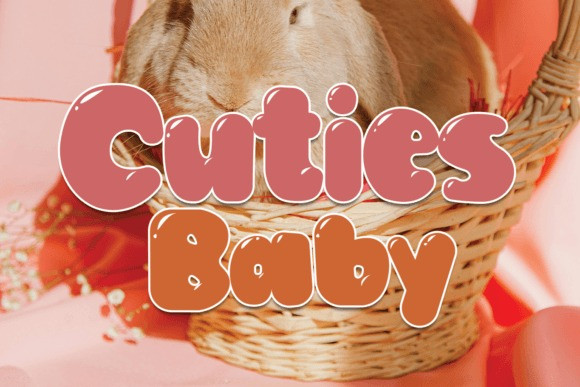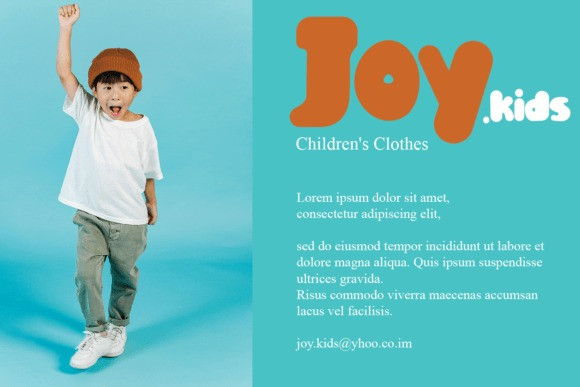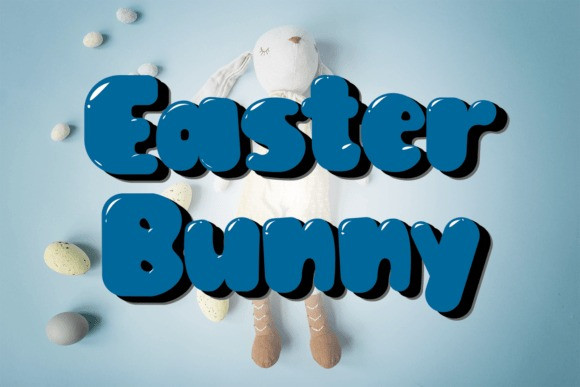
Easter Bunny Typeface
Easter Bunny Typeface is a bold and cool display font that looks modern and playful. Add this funky font to your creative ideas, and notice how it makes them stand out!